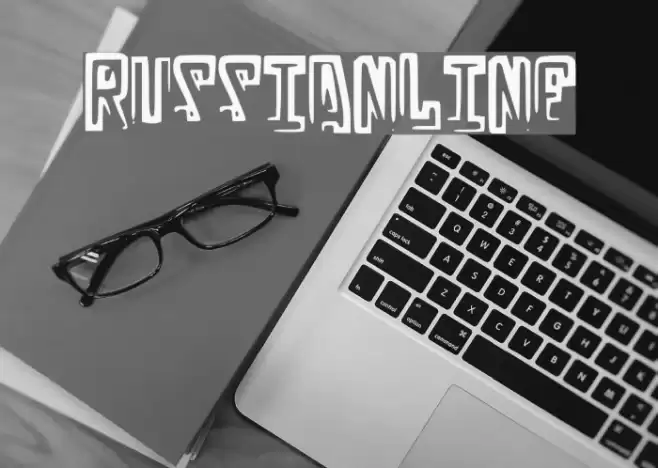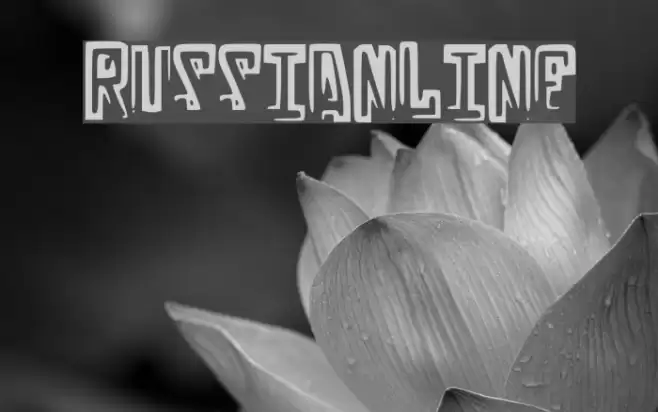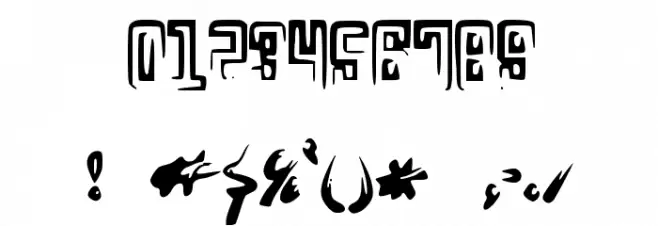
RussianLine Font
RussianLine Description
This font features a bold and striking design with a distinct urban graffiti influence. Each character is crafted with sharp angles and dynamic lines, creating a sense of movement and energy. The letters have a dripping effect, adding a raw and edgy aesthetic. The uppercase and lowercase letters maintain a consistent style, while the numbers and special characters complement the overall theme. This font's unique style makes it ideal for projects that require a bold statement or a modern, rebellious touch.
A bold, graffiti-inspired font with sharp angles and a dripping effect from Uncategorized fonts.
- Proposed Projects: Ideal for street art designs, music album covers, urban-themed posters, and edgy branding projects.
- Overall Style: Modern, Urban, Edgy